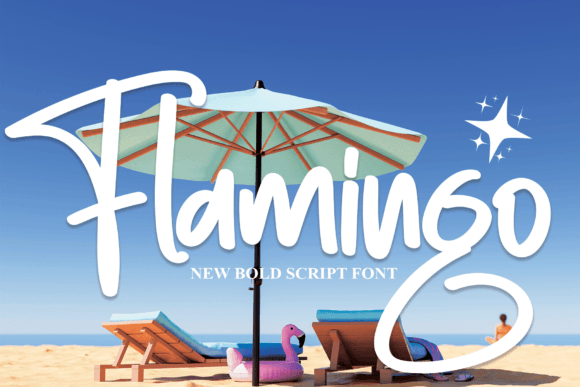
About Flamingo Font
“Flamingo” is a bold and expressive font featuring thick and solid lines that enhance readability. With conservative bends, this font strikes a harmonious balance between playfulness and professionalism, making it suitable for a wide range of design projects.
The substantial and well-defined lines of “Flamingo” ensure clarity and ease of reading, making it a versatile choice for various applications where a bold and expressive typeface is desired. Its design, with conservative bends, avoids overwhelming the reader’s eyes, creating a pleasant and balanced visual experience.
The playfulness inherent in “Flamingo” adds a touch of personality to the font, making it suitable for creative and engaging projects. This versatility allows it to seamlessly fit into both professional and artistic contexts, catering to a diverse array of design needs.
Whether you’re working on posters, branding materials, headlines, or any other design project, “Flamingo” invites you to explore its bold and expressive nature. Its ability to maintain a sense of style and readability makes it a font that can adapt to different design requirements while offering a dynamic and impactful visual presence.